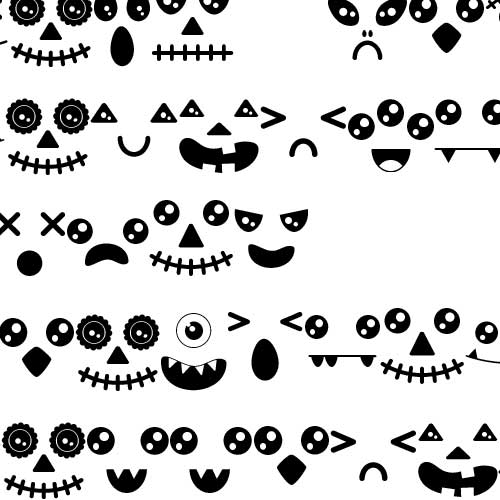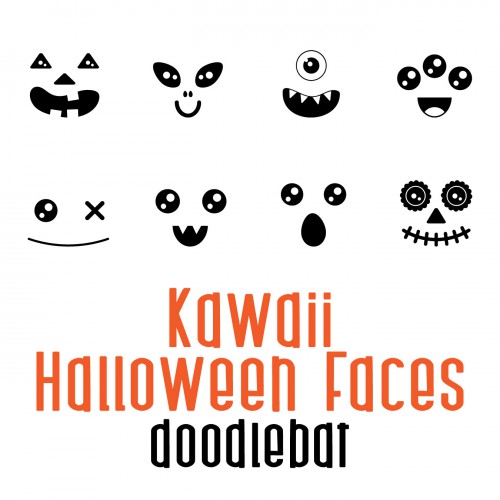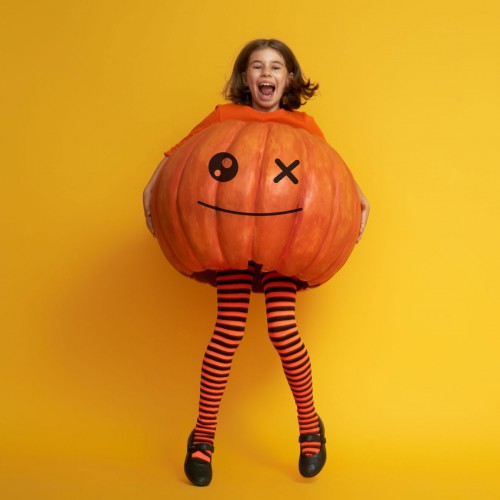
DB Kawaii Halloween Faces - DB
This adorable doodlebat features 26 different Halloween faces. Perfect to use as pumpkin carving patterns, or in home decor, cards, crafts, scrap book pages and more!